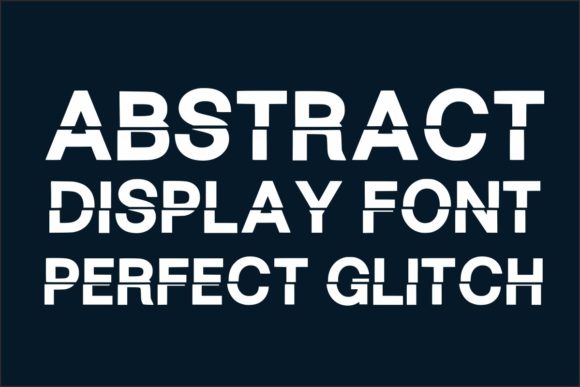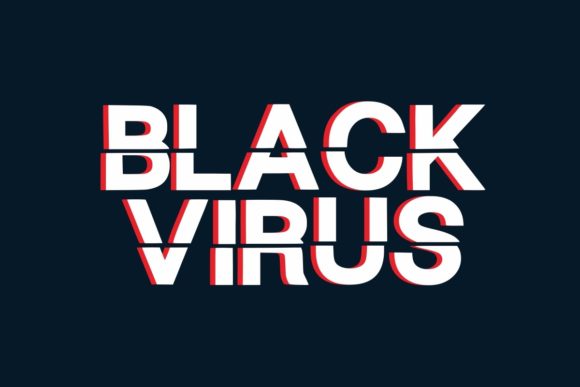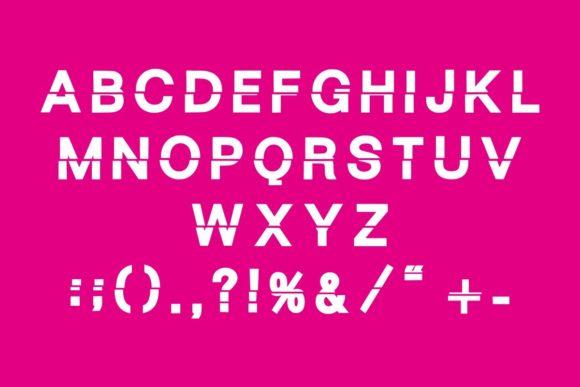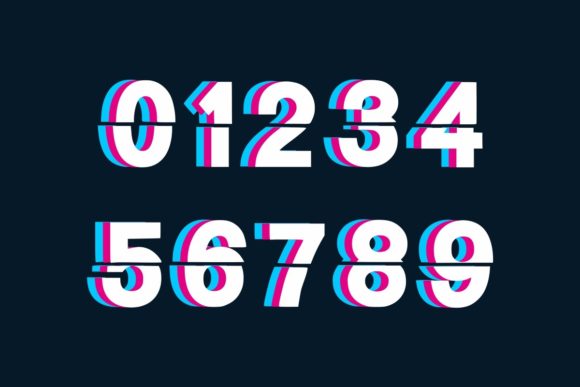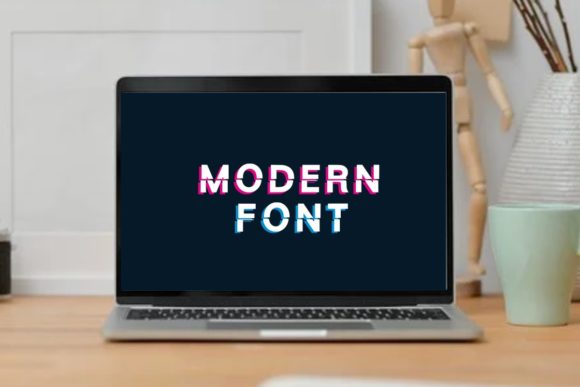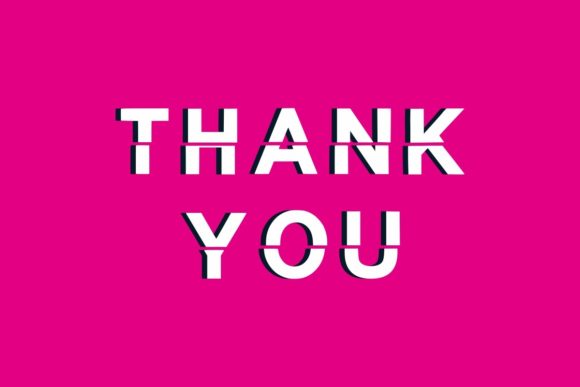
The Glitch Pixel Font: A Bold and Dynamic Display Font
I’ll never forget the design project that led me to discover the Glitch Pixel font. I was working on a poster for a local music festival, and I needed a font that would grab attention and convey the energetic vibe of the event. After hours of searching, I stumbled upon Glitch Pixel, and it instantly became the perfect fit. Its unique charm and dynamic effect made it a standout, and I knew I had found the one.
So, what makes Glitch Pixel so special? Here are a few things I love about this font:
- ✨ **Bold and eye-catching**: Glitch Pixel is a display font that demands attention. Its bold and chunky design makes it perfect for headlines and titles.
- ✅ **Dynamic effect**: The font’s glitchy effect gives it a unique and edgy feel that’s perfect for creative projects.
- ✅ **Versatile**: Despite its bold design, Glitch Pixel can be used for a variety of projects, from sporting events to automotive posters and logos.
Of course, no font is perfect, and Glitch Pixel has a few small quirks:
- 🤔 **Limited legibility**: Due to its bold and glitchy design, Glitch Pixel can be difficult to read in smaller sizes. It’s best used for headlines and titles rather than body text.
- ⚠️ **Limited font styles**: Glitch Pixel is a single font, which means you won’t have a lot of variations to work with. However, its dynamic effect makes up for this limitation.
The Glitch Pixel font was inspired by the world of digital art and glitchy effects. Its designer was fascinated by the idea of creating a font that would capture the dynamic and edgy feel of digital art. The result is a font that’s both bold and eye-catching, with a unique charm that’s hard to find in other fonts.
| What is Glitch Pixel? | Glitch Pixel is a bold and dynamic display font that features a unique glitchy effect. |
| What is Glitch Pixel best used for? | Glitch Pixel is perfect for headlines, titles, and monogrammed designs, especially for sporting events, automotive posters, and logos. |
| Can I use Glitch Pixel for body text? | No, Glitch Pixel is best used for headlines and titles rather than body text. Its bold and glitchy design can be difficult to read in smaller sizes. |